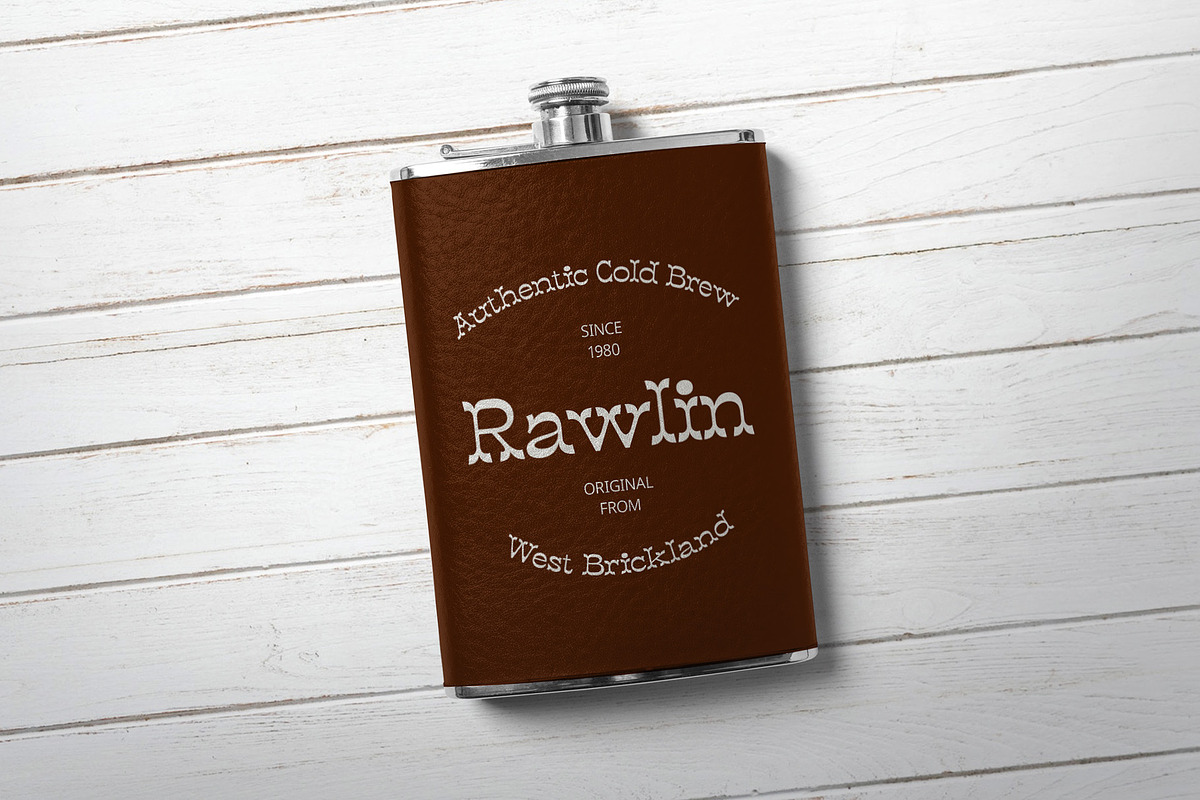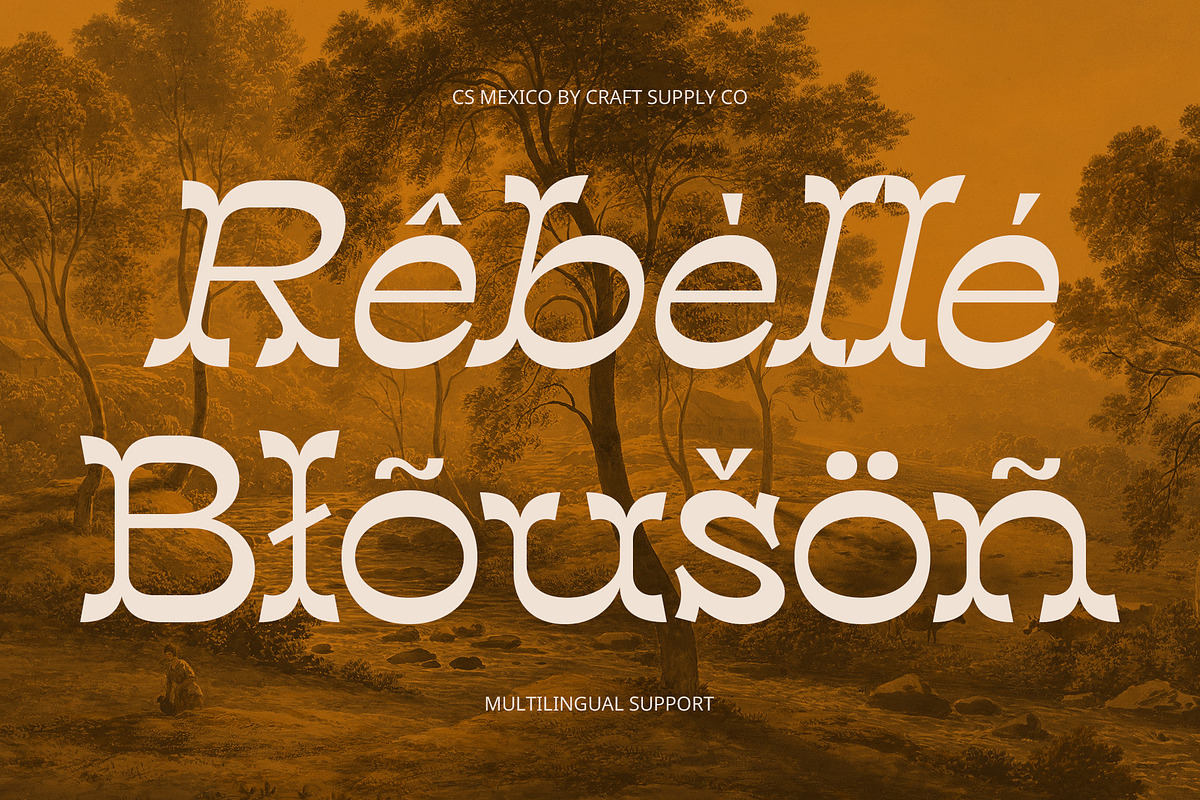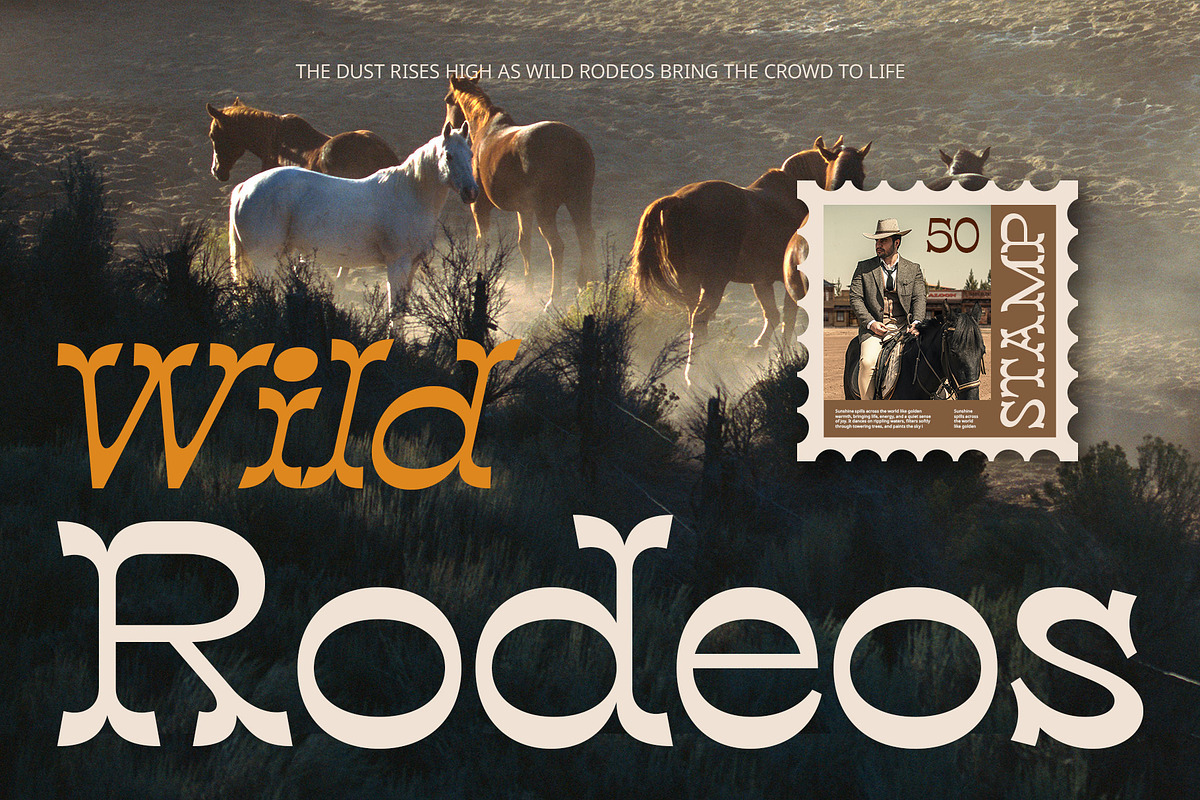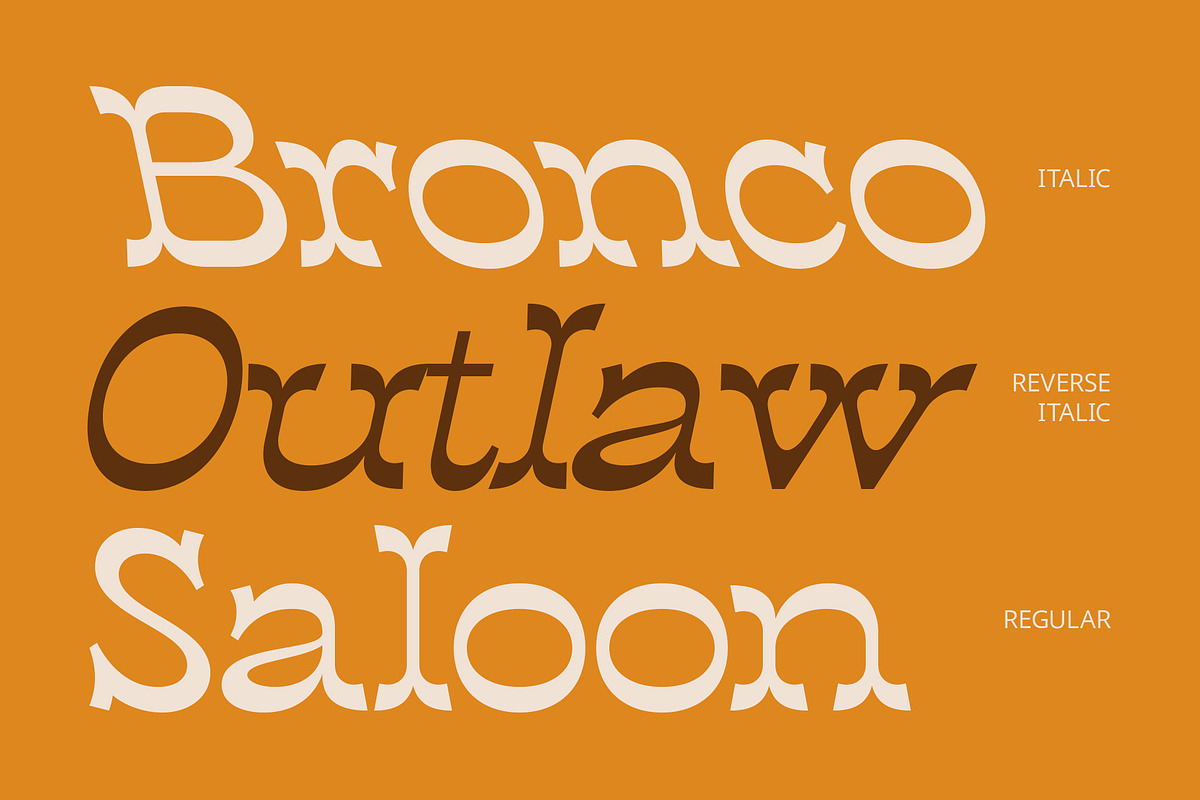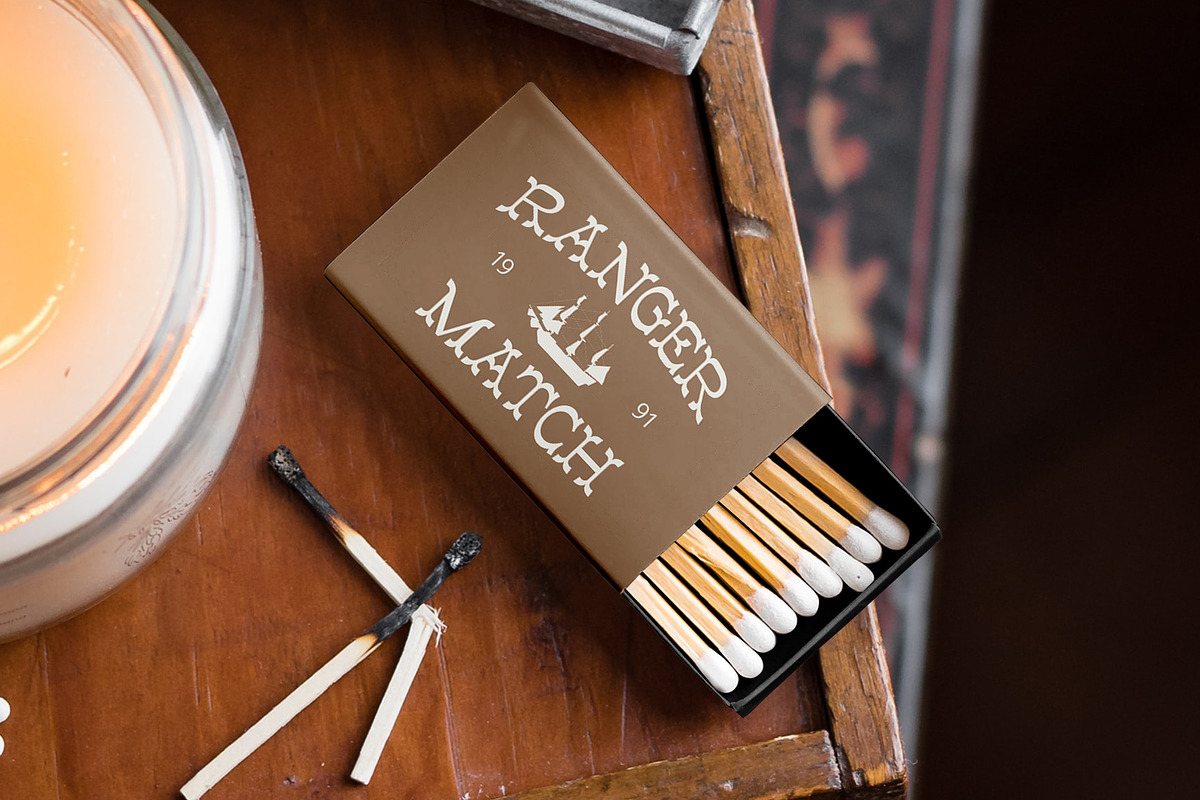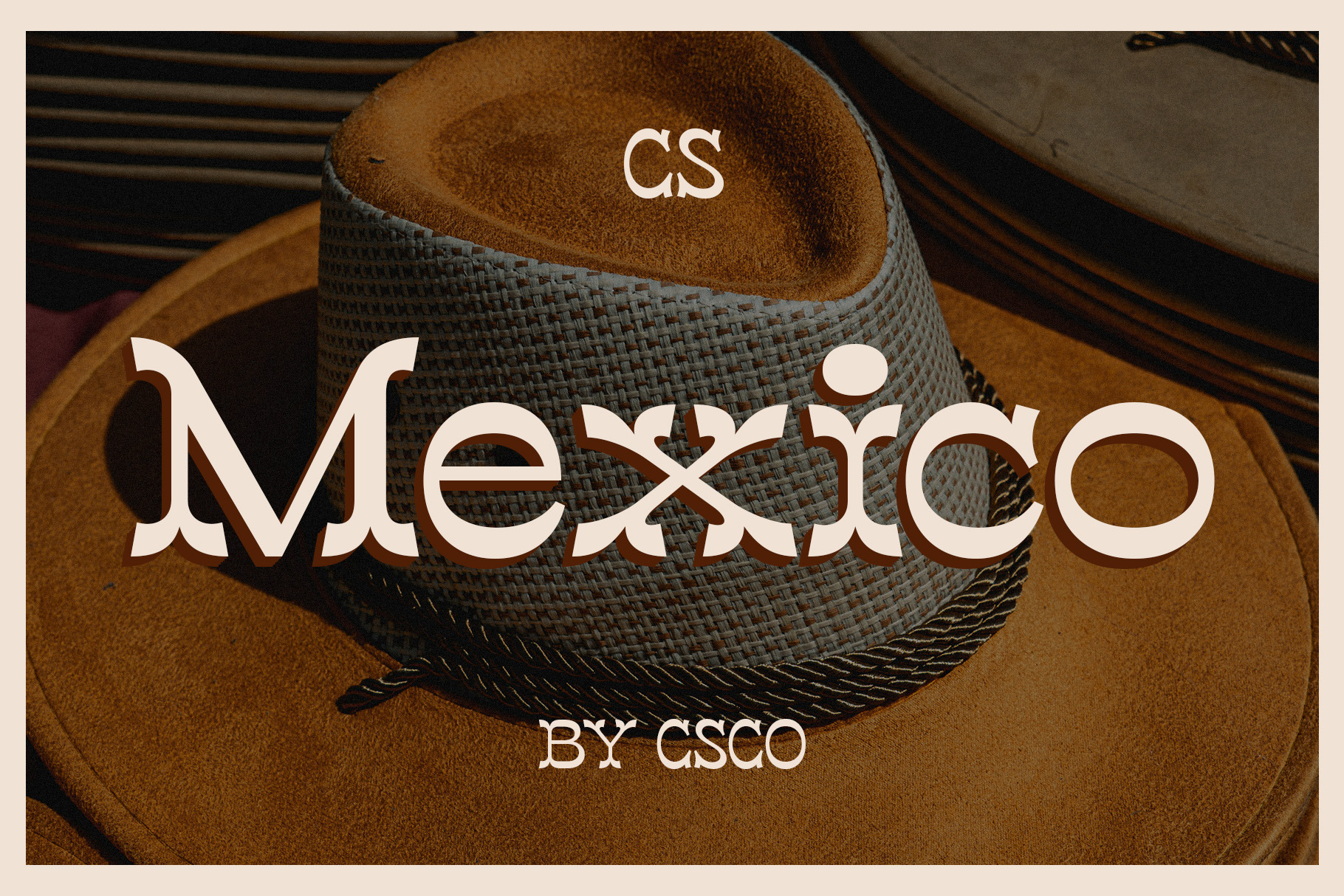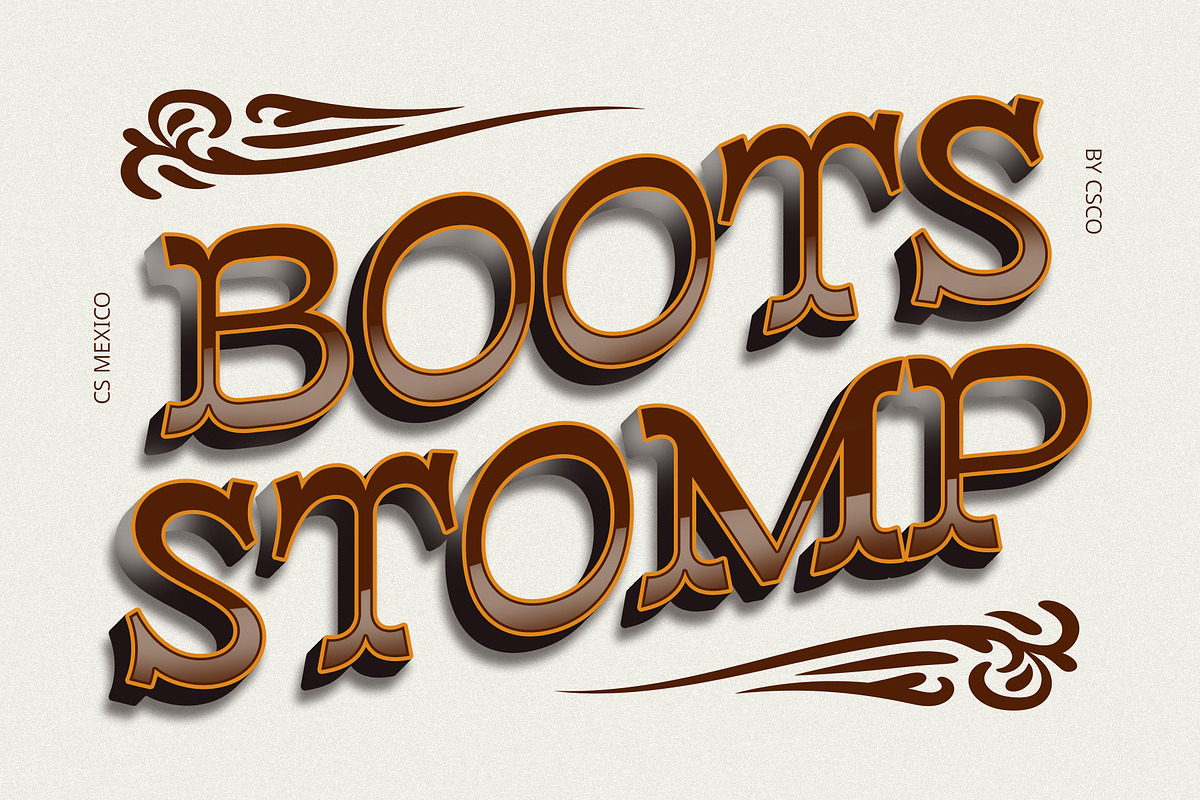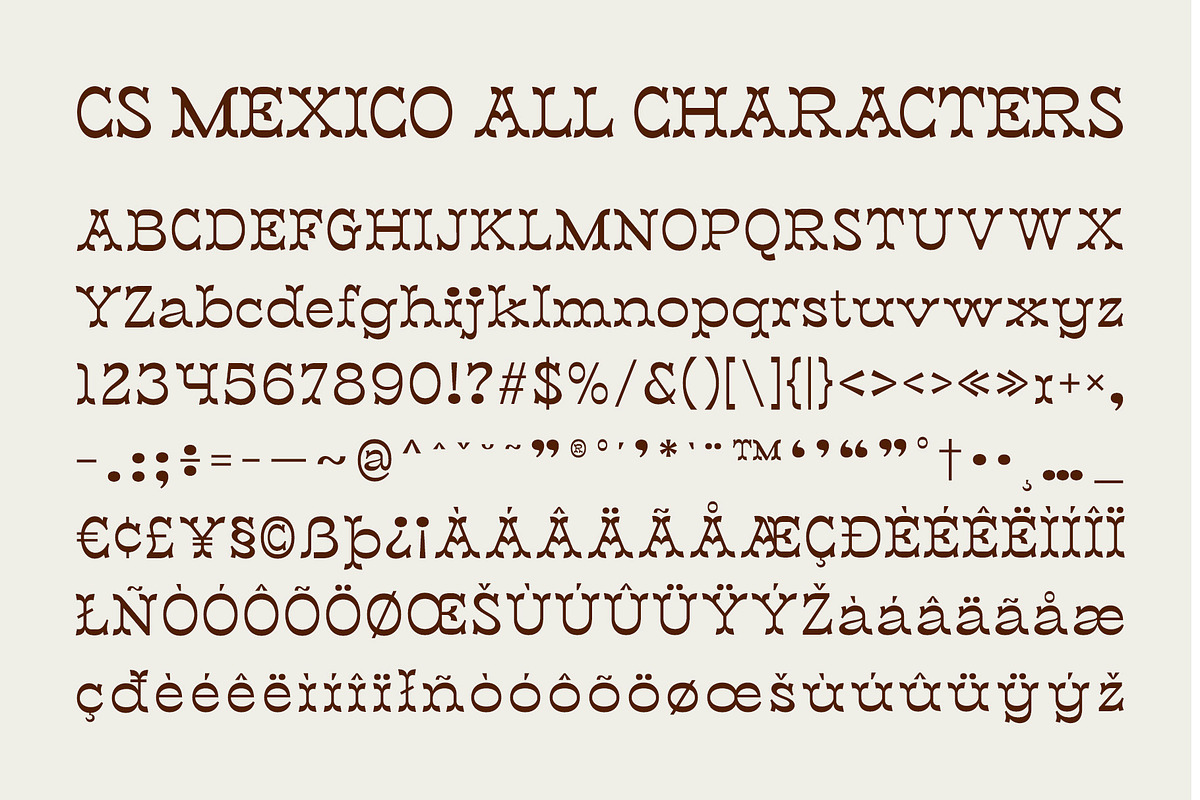
CS Mexico – Tuscan Font
CS Mexico Font – A Bold and Ornamental Tuscan Serif
A Classic Tuscan Display Font CS Mexico is a striking display serif font inspired by traditional Tuscan typography, known for its bifurcated serifs and intricate decorative details. Its bold structure and unique letterforms make it an eye-catching choice for designs that demand attention while exuding vintage elegance.
Dramatic and Unconventional Aesthetic With split serifs, ornamental accents, and dynamic curves, CS Mexico delivers a strong, expressive character. This highly stylized font blends historical charm with modern versatility, making it ideal for Western-inspired graphics, retro signage, and classic branding.
Perfect for Posters, Branding, and Signage Designed to stand out, CS Mexico is perfect for posters, storefront signage, packaging, and editorial layouts. Whether you’re working on a heritage-themed project or a bold artistic statement, this font brings a dramatic and unforgettable visual impact.
A Tribute to Vintage Lettering Rooted in historical type traditions, CS Mexico revives the ornamental beauty of 19th-century typography while remaining adaptable to contemporary design needs. It’s the ideal choice for designers looking to create a bold, decorative, and charismatic look with a nod to the past.